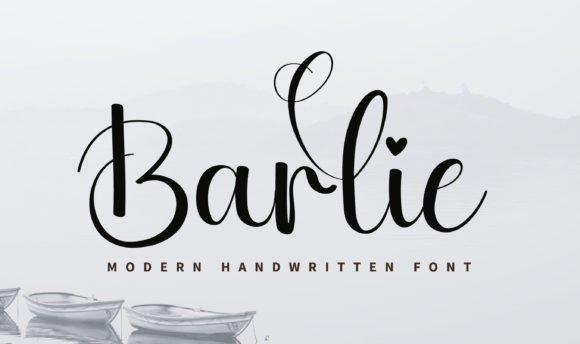
Prepare to be captivated by Barlie Font, a script font that exudes elegance and modernity in every letterform. Designed by the talented Nurstudio, Barlie possesses a contemporary feel and flawless form, reflecting the essence of classic handwriting.
Unleash your creativity and heighten the impact of your designs with Barlie. This captivating font graces logos, company identities, wedding invitations, posters, and more with a touch of sophistication. Let your brand identity shine with the unique charm of Barlie, making a lasting impression on your audience.
Dive into the world of fashion and elevate your clothing designs with Barlie. Its flowing curves and graceful strokes bring a touch of elegance to textile prints, adding a personal touch to your creations. Engage your audience with captivating posters that feature Barlie's bold and expressive characters, leaving an unforgettable mark.
Step into the realm of gaming and animation, where Barlie's versatility knows no bounds. Bring your characters to life with the playful and energetic vibe of Barlie, creating captivating stories that resonate with your audience. Craft stunning magazines and books with Barlie, allowing your words to dance across the pages with grace and style.
Elevate your Instagram presence with Barlie's Instagram-worthy aesthetics. Its visually appealing characters add a touch of sophistication to your posts, capturing the attention of your followers and leaving a lasting impression. Create a cohesive brand identity on websites, cartoons, and YouTube videos with the seamless flow of Barlie's letterforms.
With Barlie, the possibilities are endless. Express your creativity in countless design projects, from whimsical illustrations to captivating YouTube videos. Its adaptability and charm make it the perfect choice for designers seeking a font that exudes elegance, modernity, and timeless appeal.
Immerse yourself in the world of Barlie Font, and let your creativity flourish like never before. Discover the beauty of classic handwriting infused with contemporary flair, and unlock the potential to transform your designs into masterpieces. Embrace the power of Barlie and embark on a creative journey that will leave your audience in awe.